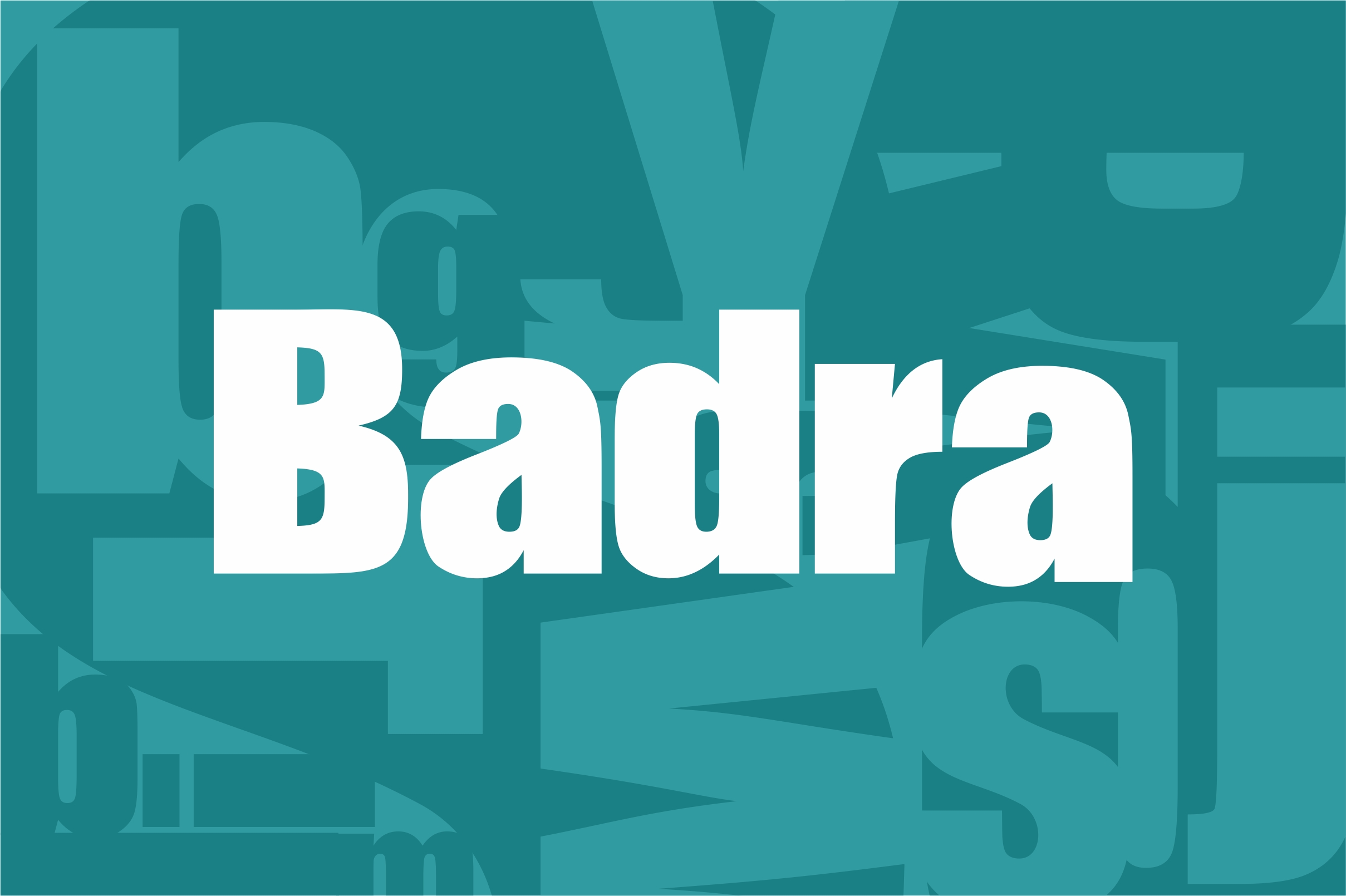
Badra Font: A Bold Sans Serif for Modern Logo Design & Branding
About the Badra Font
The Badra Font offers a perfect balance of form and function for your design needs. Badra is a san serif bold font. Clean and easy to read.
Its bold, clean lines make Badra ideal for headlines, short impactful statements, and branding applications where a strong visual presence is needed. It works exceptionally well in posters, signage, and even short-form packaging copy. However, its weight makes it less suitable for body text or lengthy paragraphs, where readability would suffer. Avoid using it in user interfaces (UI) requiring extensive text.
For effective pairings, consider complementing Badra’s boldness with a light, neutral sans-serif like Lato for body text, or a delicate serif like Garamond for a touch of classic elegance. A contrasting geometric sans-serif, such as Futura, could also create a striking modern feel.
Badra projects a confident and modern personality. Its clean forms convey professionalism, making it a suitable choice for brands seeking to communicate strength and reliability.